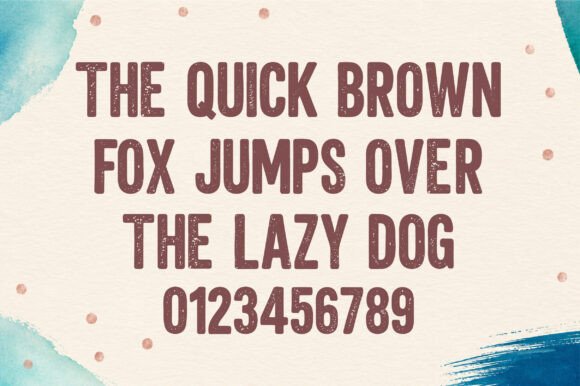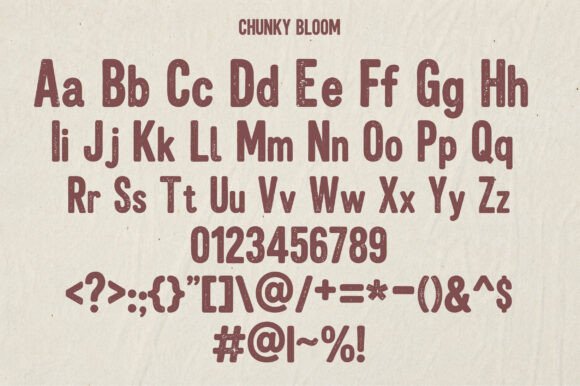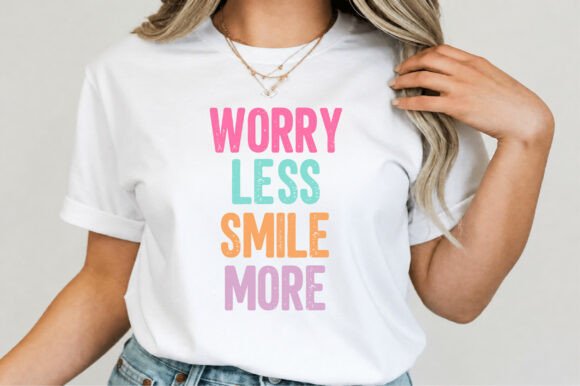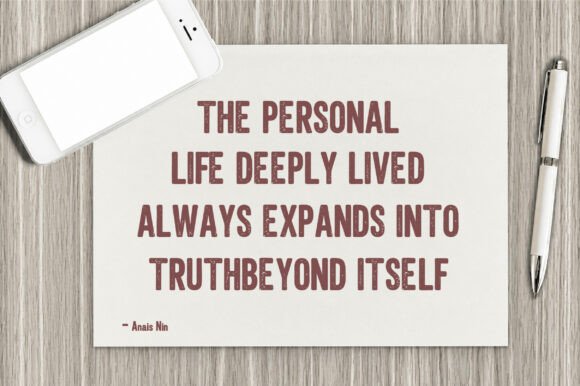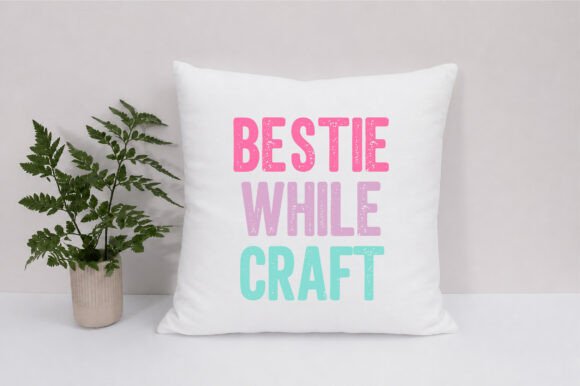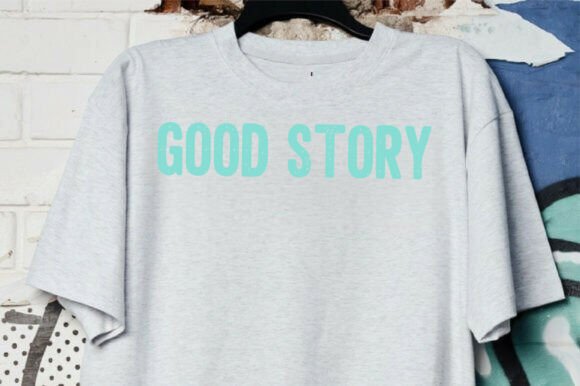
The Perfect Distressed Touch: Unleashing the Magic of Classic Distress Font
As designers, we’ve all been there – staring at a blank canvas, trying to conjure up the perfect idea. The spark of creativity hits, and suddenly, a vision takes shape. For those moments, we need a font that’s just as bold and vibrant as our imagination. That’s where the Classic Distress Font comes in – a vintage-inspired display font that adds a playful, handcrafted touch to our designs.
This font is a game-changer for designers looking to add a stylish, nostalgic vibe to their work. With its tall, chunky letterforms and worn print effect, Classic Distress Font is perfect for posters, branding, and creative craft projects. Its colorful aesthetic makes it ideal for both modern and vintage themes, giving designers the flexibility to experiment and push boundaries.
Key Features of Classic Distress Font
- Unique Characteristics: Classic Distress Font features a distressed, vintage aesthetic with worn, weathered, and textured effects, giving it a unique and eye-catching appearance.
Designer Review: Classic Distress Font
Overall, I think the Classic Distress Font has some great qualities that make it a solid choice for designers, but it also has some limitations that might hold it back from being a top contender.
- ✨ Unique Character: The Classic Distress Font has a distinct, worn-in feel that’s perfect for projects that need a vintage or distressed look.
- ✨ High Customization: The font is highly customizable, allowing designers to adjust the level of distress to fit their specific project needs.
- ⚠️ Limited Expressiveness: While the font is great for distressed or vintage looks, it may not be the best choice for projects that require a wide range of expressions or emotions.
- ⚠️ Limited Character Set: The font’s character set is somewhat limited, which may make it difficult to use for projects that require a wide range of characters or languages.
The Classic Distress Font is a solid choice for designers who are looking for a unique, distressed look. While it may not be the best choice for every project, it’s a great option for designers who want to add a bit of grit and texture to their designs.
Classic Distress Font: A Practical Application Guide
To get the most out of the Classic Distress Font, use it for designs that require a vintage or distressed look, such as:
- Posters and flyers for music festivals or events
- Branding and packaging for vintage or retro-themed businesses
- Photographs and captions for social media or blogs